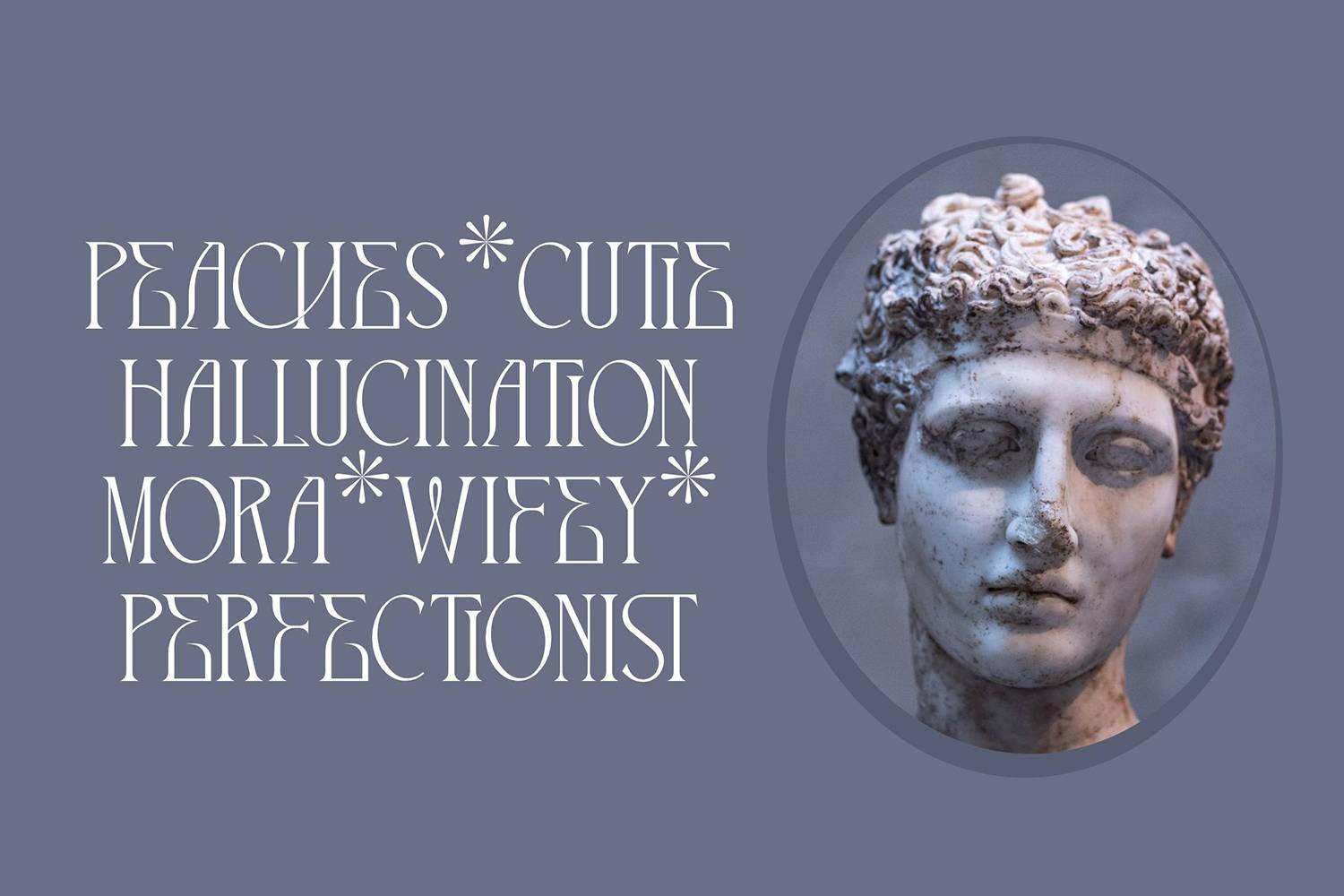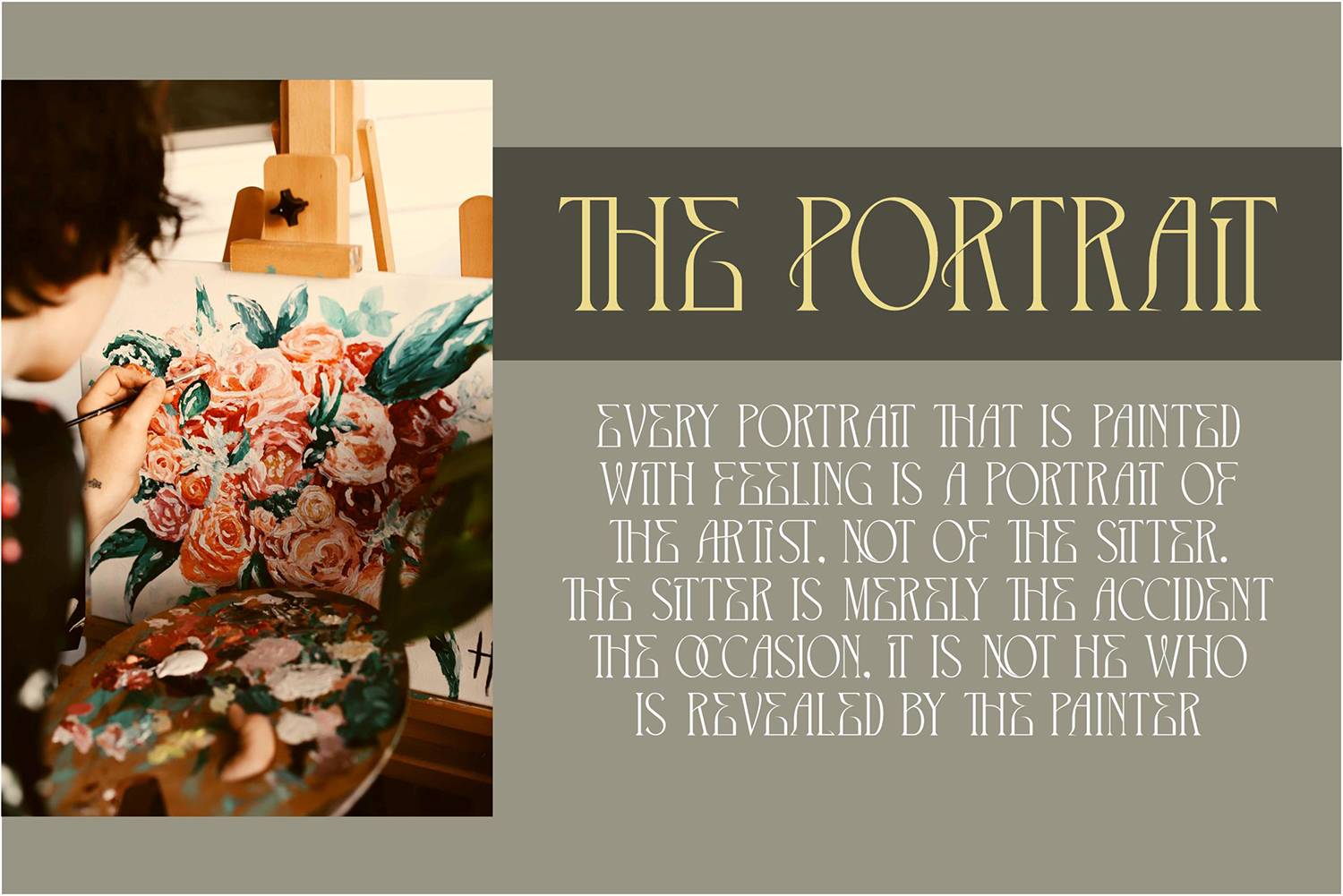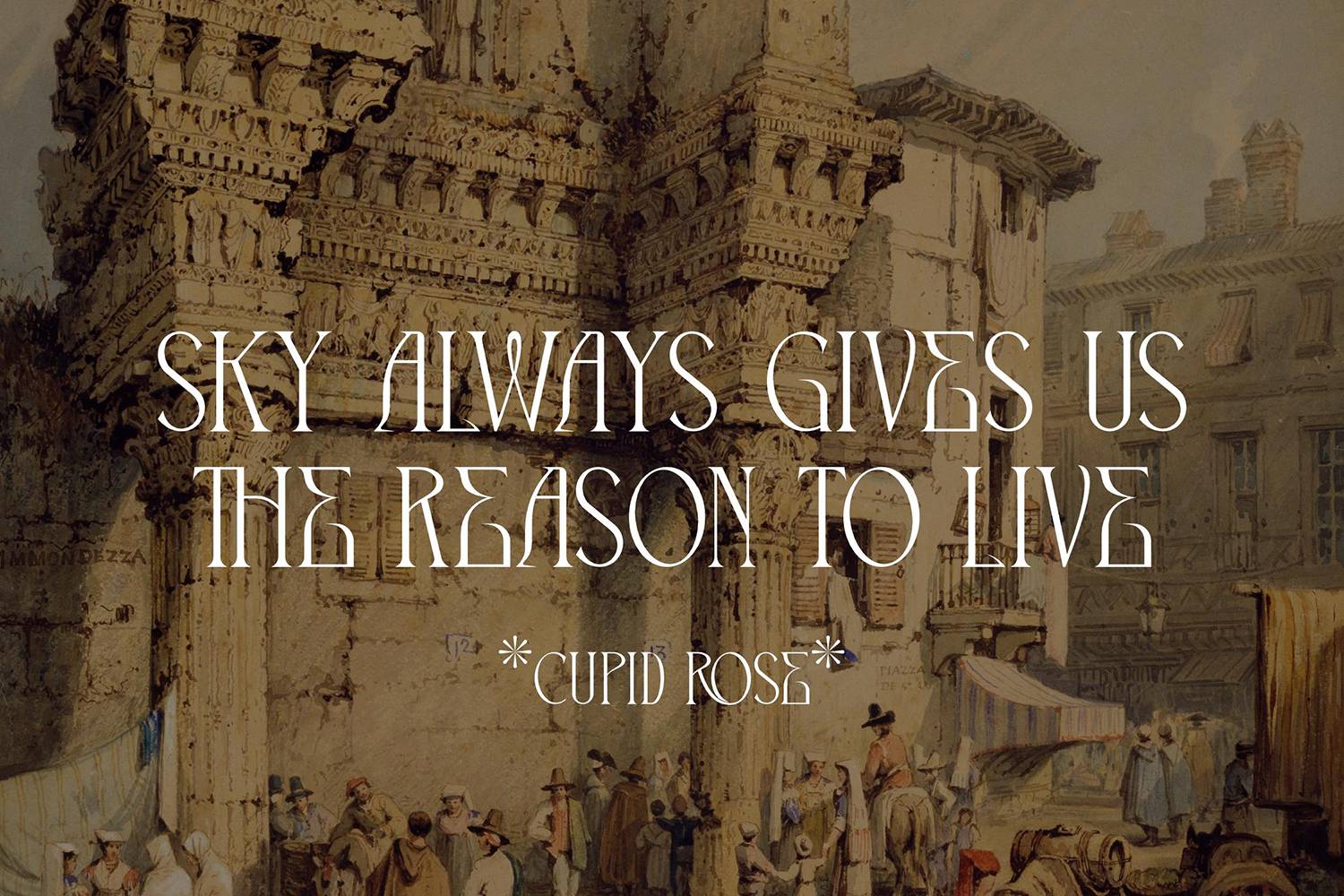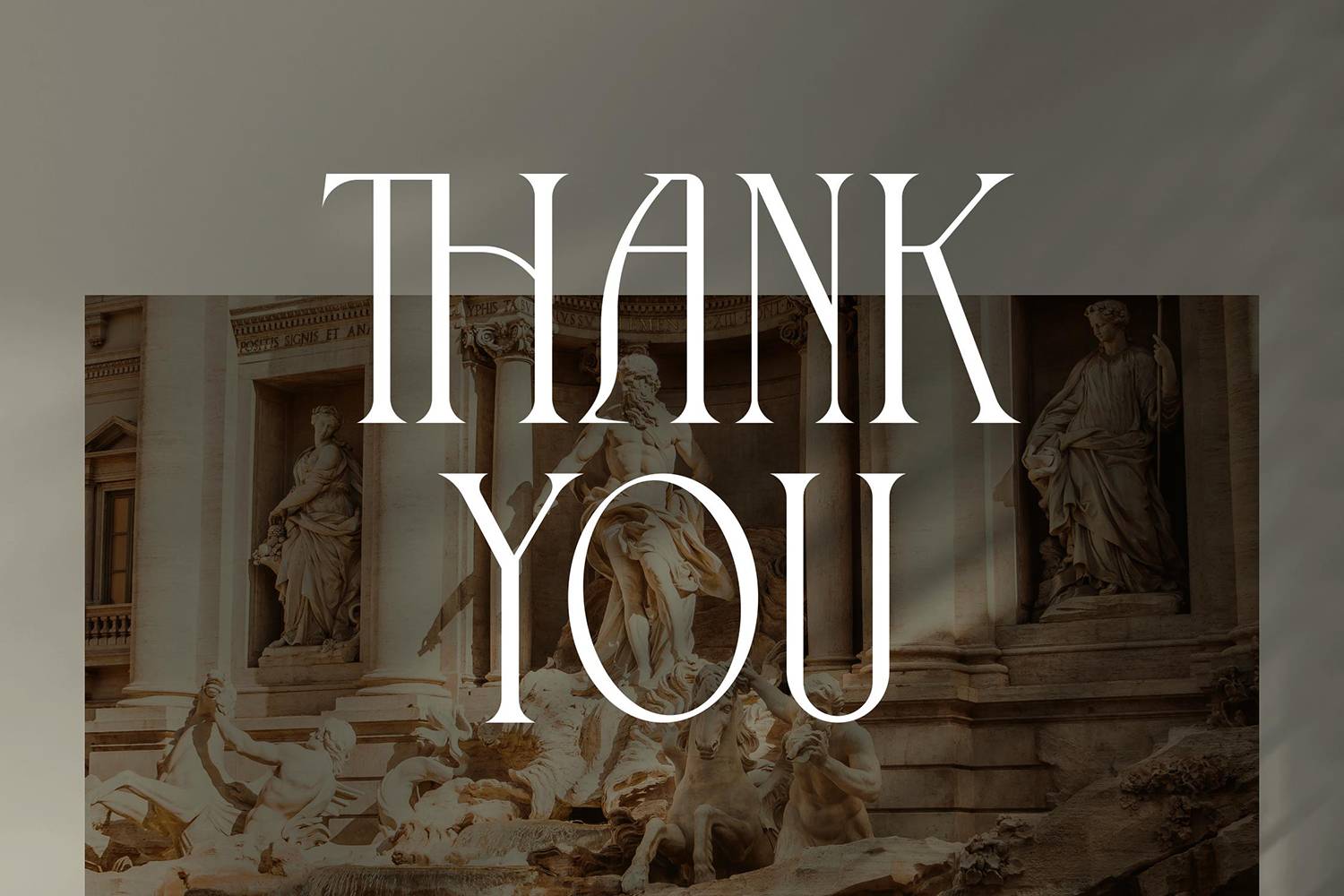
The Cronicle is a distinctive serif font with a tall, elegant structure and high contrast between thin and thick strokes, giving it a refined, art-deco-inspired appearance. Its unique, stylized letterforms blend classic sophistication with modern flair, making it perfect for luxury branding, editorial headlines, and creative design projects that aim to stand out with a touch of vintage charm.
The Cronicle Font
About The Cronicle Font